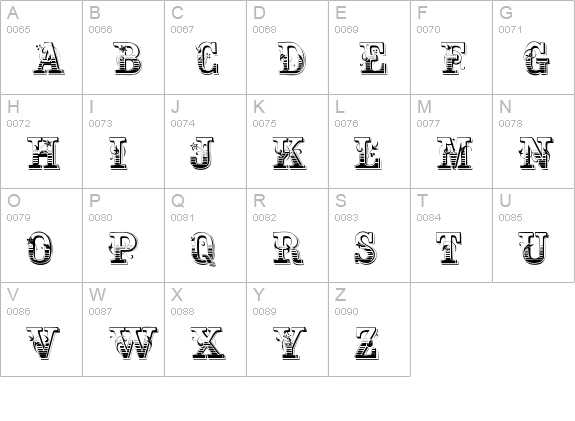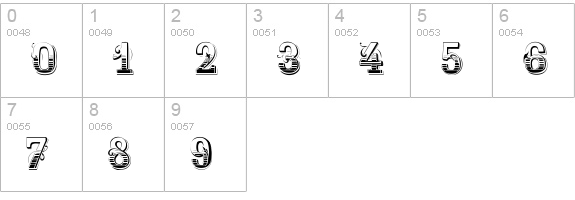
Holtzschue font is a beautifully crafted typeface that exudes elegance and sophistication. Its sleek lines and modern aesthetic make it a versatile choice for a wide range of design projects. With its unique blend of traditional and contemporary elements, Holtzschue font adds a touch of refinement to any text or display. What's even better is that Holtzschue font is available for free download at FontsMarket.com. This means you can easily access this stunning font and use it in your creations without any cost. Whether you're working on branding, advertising, or any other design project, Holtzschue font is sure to elevate your work and make a lasting impression. Experience the beauty and versatility of Holtzschue font today by downloading it for free at FontsMarket.com.